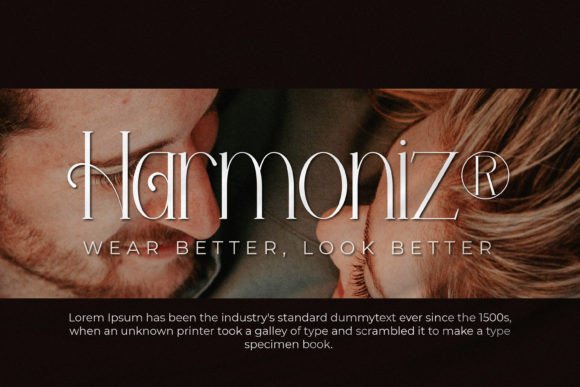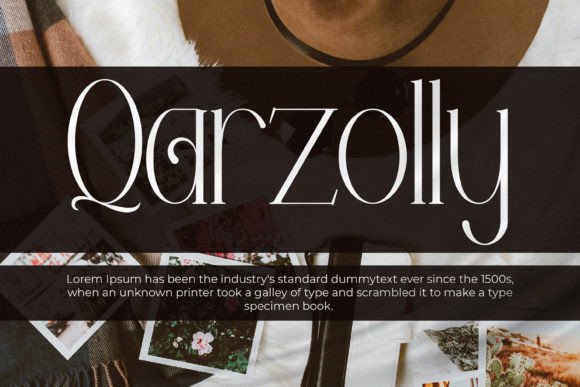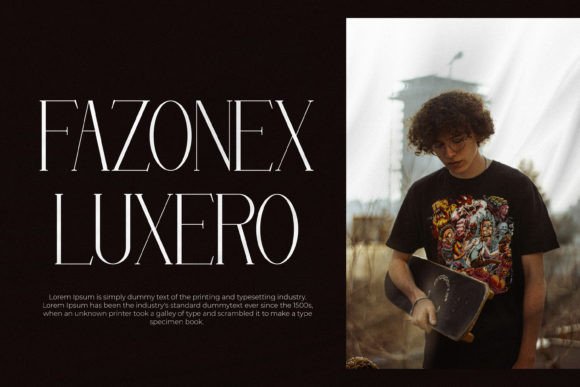
Introduction to Hanoka Font
As designers, we’ve all been there – staring at a blank canvas, struggling to find the perfect font to bring our creative vision to life. It’s that moment when the right typeface can make all the difference. For those seeking a modern and sophisticated look, the Hanoka Font is an excellent choice. This stylish serif font seamlessly combines clean lines with subtle curves, creating a contemporary aesthetic that elevates any design.
Whether you’re working on an editorial design, luxury branding, or web typography project, Hanoka Font is a valuable resource for designers. Its sophisticated presence enhances every composition, making it an ideal choice for those seeking a touch of modern elegance in their creative projects.
Key Features of Hanoka Font
- Unique style: Hanoka Font features a distinctive and elegant design, perfect for adding a touch of sophistication to your work.
- Perfect for creative projects: Hanoka Font is ideal for use in logos, branding, typography, and other design elements where a high-quality, elegant font is required.
Honest Review: Hanoka Font
As a designer, I’m always on the lookout for high-quality design resources to elevate my creative projects. Recently, I had the chance to try out the Hanoka Font, and I’m excited to share my honest review with you.
What works well: ✨ I was impressed by the elegant and modern aesthetic of the Hanoka Font. It’s perfect for a variety of design applications, from branding and packaging to editorial and digital design. The font is highly legible and comes in a range of weights, making it easy to customize for different uses.
Limitations: ⚠️ While the Hanoka Font is a great resource, it’s worth noting that it’s not suitable for all design applications. For example, it may not be the best choice for complex, technical writing or for use in very small text sizes.
Overall, I was impressed by the Hanoka Font and would definitely recommend it to designers looking for a high-quality, modern font to add to their design arsenal.
The Hanoka Font is ideal for a variety of creative projects, including logos, business cards, brochures, and social media graphics. Its high-quality design and transparent background make it perfect for designing graphics with complex backgrounds.